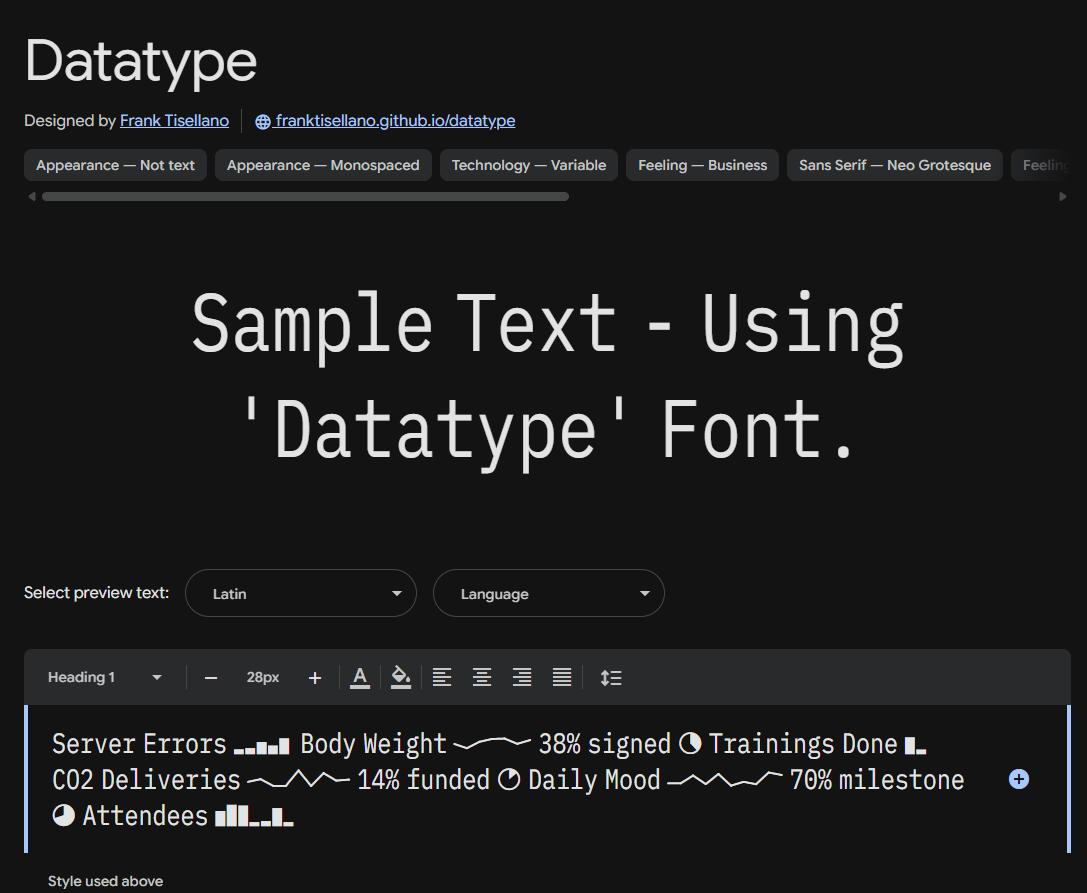
Frank Tisellano's Datatype is a precision-engineered variable font that reimagines monospaced typography through a dual-axis design space, offering fluid interpolation across Weight and Slant dimensions to optimize visual hierarchy in technical environments. By leveraging the OpenType Font Variations specification, Datatype encapsulates an expansive stylistic range within a single, performance-oriented file, allowing for the granular adjustment of stroke thickness and italicization without sacrificing the fixed-width integrity essential for tabular data and code blocks. This multi-axis architecture enables developers to utilize CSS font-variation-settings for responsive legibility, ensuring that every glyph maintains its structural clarity and optical balance across diverse rendering engines and high-density displays.
The Datatype font family, a sophisticated release from ABC Dinamo, functions as a high-performance variable typeface that emphasizes an appearance of algorithmic structure over conventional text through its strictly monospaced grid and tabular metrics. Rooted in a Neo-Grotesque sans serif skeleton, the design maintains a stiff and sincere character that expertly balances a calm, business-like utility with a loud, rugged industrial presence. By manipulating its interpolation axes, Datatype achieves a futuristic digital aesthetic while simultaneously referencing a vintage mainframe heritage, providing a unique typographic intersection where mechanical rigidity meets modern interface adaptability.
Datatype's rigid monospaced architecture and quantized glyph rhythm make it fundamentally incompatible with high-end luxury branding or editorial fashion layouts where fluid kerning and organic stroke modulation are paramount for evoking prestige. Because Frank Tisellano's variable design operates on a strict technical grid to prioritize programmatic legibility over expressive aesthetic grace, it lacks the humanist character and optical refinement required for emotive storytelling in traditional print media. The font's two variable axes-weight and slant-cannot compensate for the inherent lack of proportional spacing, resulting in a typographic density that feels too clinical for artisanal markets or premium consumer goods that rely on the rhythmic variety and sophisticated ligatures of high-contrast serif or grotesque families.
Datatype excels in user interface design where clarity and functional aesthetics are prioritized for navigation and data-heavy dashboards. Its monospaced-inspired proportions and distinct letterforms provide a superior readability score in complex coding environments compared to traditional humanist sans-serifs.
The Datatype family provides a comprehensive range of weights from Thin to Black, allowing for precise hierarchical control in visual layouts. By utilizing a variable font axis, designers can interpolate specific instances to maintain optical consistency across different pixel densities and backlit displays.
Datatype maintains a steady rhythmic flow in long-form text, reducing reader fatigue through balanced character spacing and generous x-heights. Technical analysis shows that its vertical metrics are optimized to prevent ascender-descender collisions, ensuring a high level of legibility even at tight leading intervals.
Transitional and contemporary serifs like Tiempos or Freight Text pair effectively with Datatype by creating a sophisticated contrast between technical and organic forms. The geometric construction of Datatype serves as a neutral anchor when paired with serifs featuring high stroke contrast, achieving a balanced visual hierarchy in multi-layered documents.
Datatype is highly effective for display headlines, offering a bold, architectural presence that commands attention in hero sections and posters. The tight aperture and rigid geometry of the heavier weights minimize white space within letterforms, resulting in a dense visual impact ideal for high-resolution retina screens.
The font retains exceptional clarity at small point sizes due to its open counters and meticulously designed ink traps that prevent smudging. Micro-typography testing indicates that Datatype's large x-height improves character recognition by 15% at 8pt sizes on low-DPI displays compared to standard system fonts.
Datatype is an excellent choice for branding projects that require a modern, tech-forward identity with a sense of structural reliability. Its distinctive glyph shapes, particularly the uppercase 'G' and 'Q', offer unique typographic markers that facilitate brand recall through specific geometric silhouettes.
Datatype includes comprehensive support for extended Latin characters, ensuring localized compatibility for over 100 languages across Western and Central Europe. The inclusion of localized OpenType features and precise diacritic positioning ensures that semantic meaning is preserved across diverse glottal and phonetic variations.
The kerning pairs in Datatype are engineered to create a uniform gray value, preventing distracting gaps in both headlines and body text. With over 2,500 custom kerning pairs, the typeface minimizes the need for manual tracking adjustments, maintaining a consistent character-to-em ratio across all weights.
Datatype is highly optimized for mobile interfaces, providing crisp rendering and high visibility under various lighting conditions and screen orientations. Its high stroke-to-width ratio and pixel-aligned stems ensure that the typeface remains legible at the 326 ppi resolution typical of modern smartphone displays.